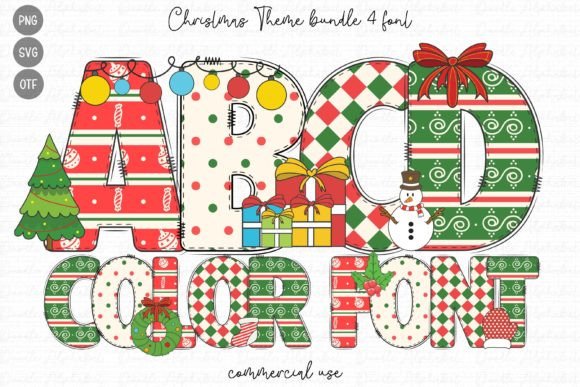
Introducing the Christmas Theme Font - the perfect addition to your collection of festive typography! Created by the talented Phongsakon Phonkhammak, this font is designed to bring a touch of holiday magic to all your Christmas-themed projects.
With its vibrant and colorful style, the Christmas Theme Font will instantly capture attention and elevate the visual appeal of your designs. From Christmas cards and invitations to shirts and crafts, this font will make your creations truly stand out.